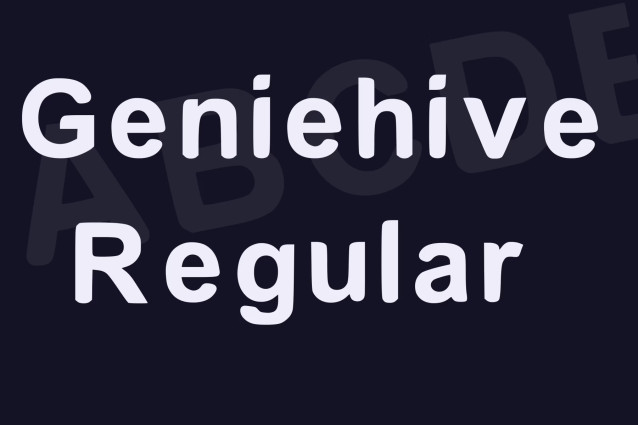
Geniehive Font
Geniehive Font is a bold, expressive freeware font crafted exclusively for the GenieHive Collective brand. With its strong presence and creative flair, it captures the spirit of innovation, art, and digital culture. Ideal for headlines, branding, and standout visuals, GenieHive is free to use and made to empower creators everywhere.